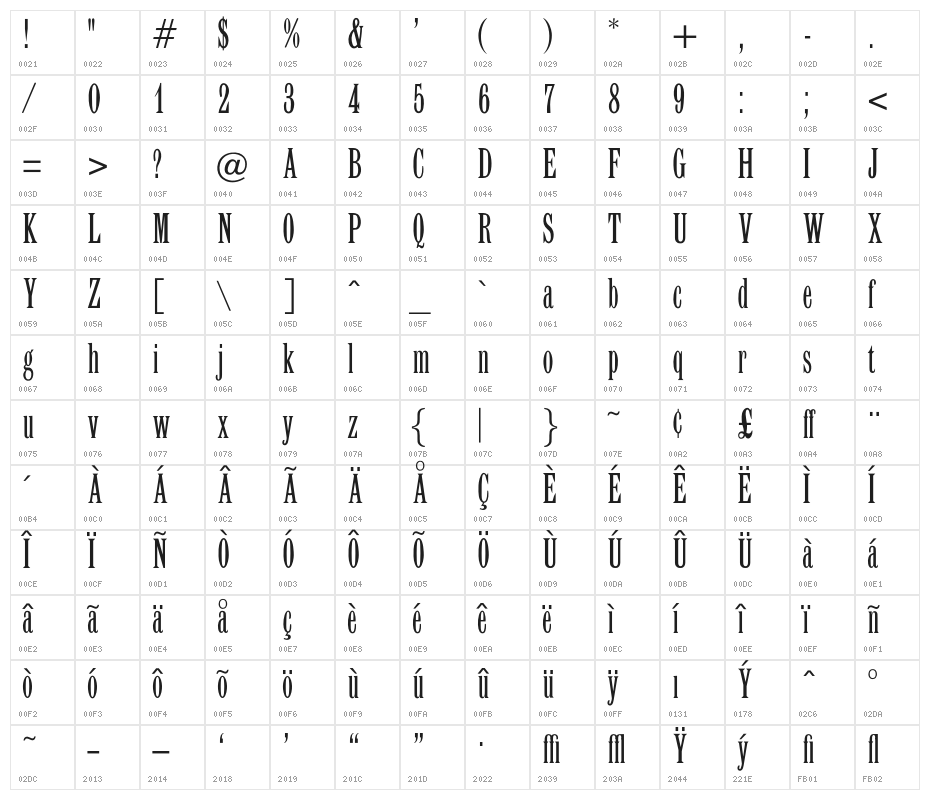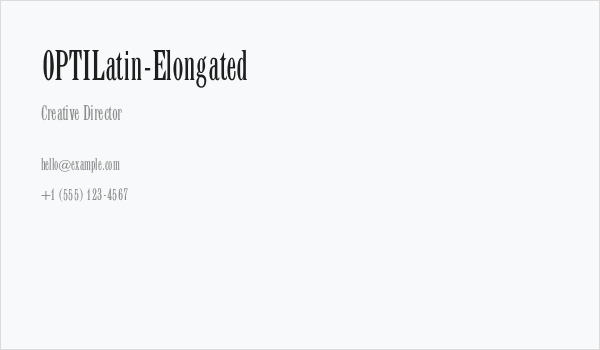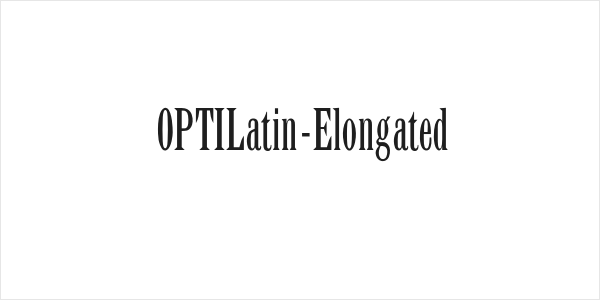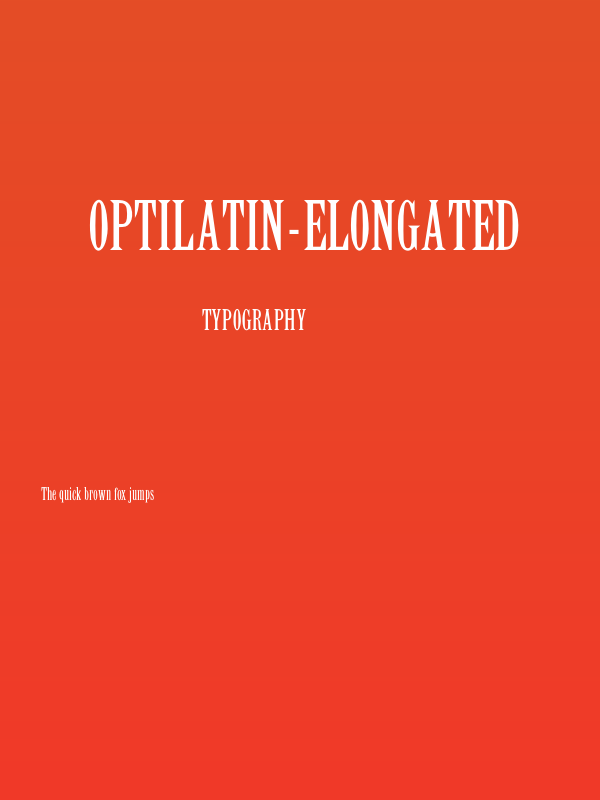
OPTILatin-Elongated Font
OPTILatin-Elongated Description
This font features an elongated and narrow design, characterized by its tall and slender letterforms. The uppercase letters are particularly striking, with a vertical emphasis that gives them a commanding presence. The lowercase letters maintain this elongated style, ensuring consistency across the typeface. The numerals are similarly styled, offering a cohesive look throughout. Special characters are included, matching the overall aesthetic with their elongated forms. The font's high contrast between thick and thin strokes adds to its dramatic appearance, making it suitable for attention-grabbing designs.
| Proposed Projects | Ideal for posters, headlines, and branding projects that require a bold and distinctive look. |